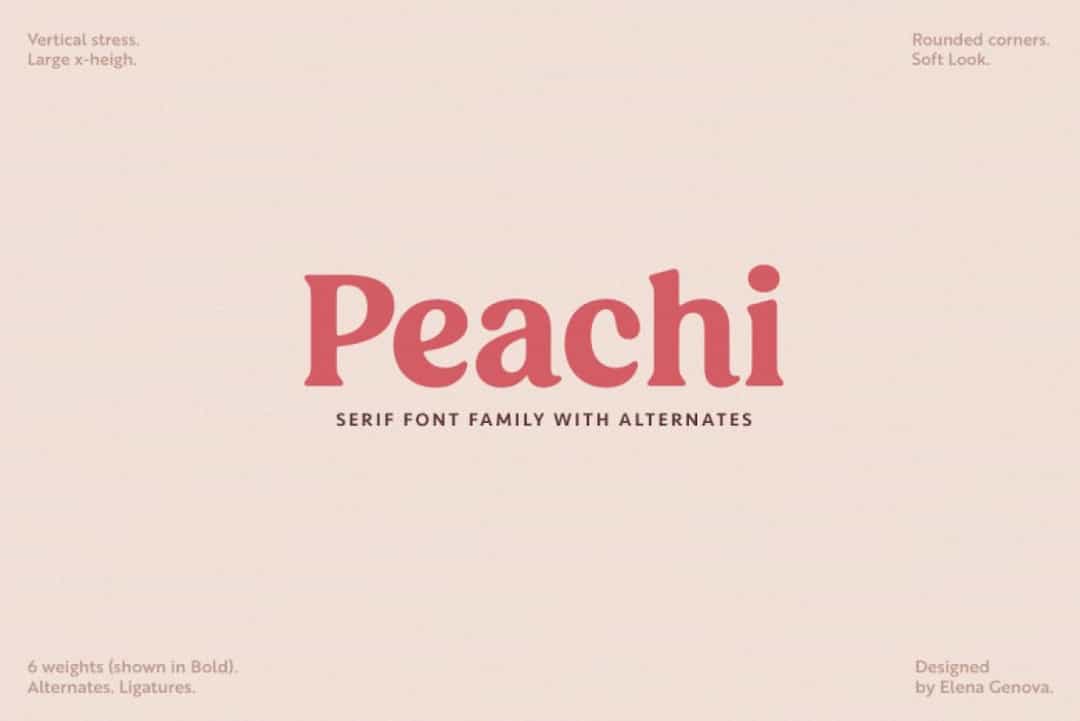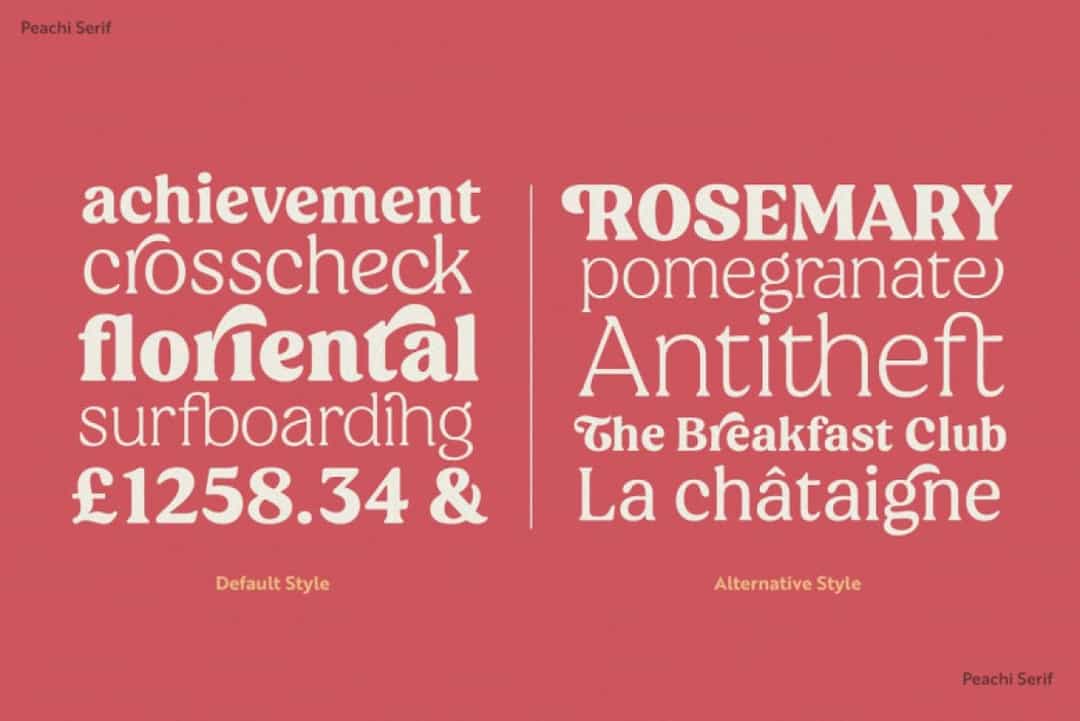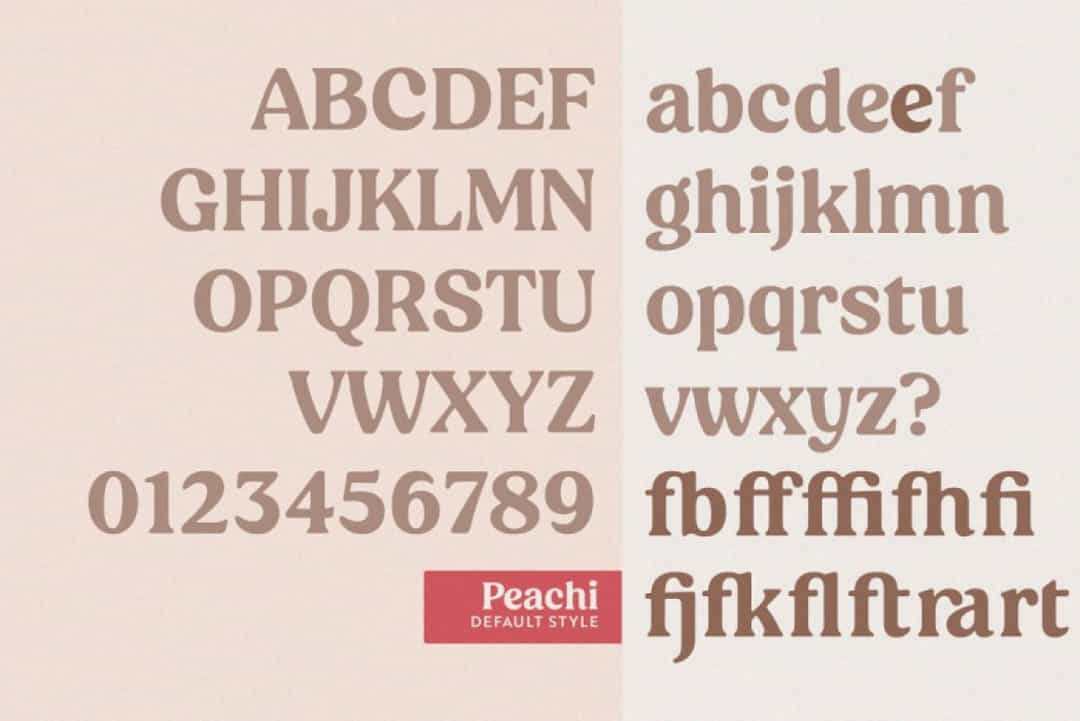
Peachi Font is an elegant serif typeface inspired by Morris Fuller’s Souvenir Forms and other fonts of its time – such as those created during the early 1900s – featuring soft corners with round corners and slightly bent legs for capital A, K, W and lowercase letters such as KVWY (k-v-WY). A rather large ball terminal and wide x-heigh make Peachi suitable for creating books, titles, branding quotes or any design which needs to stand out and be remembered.